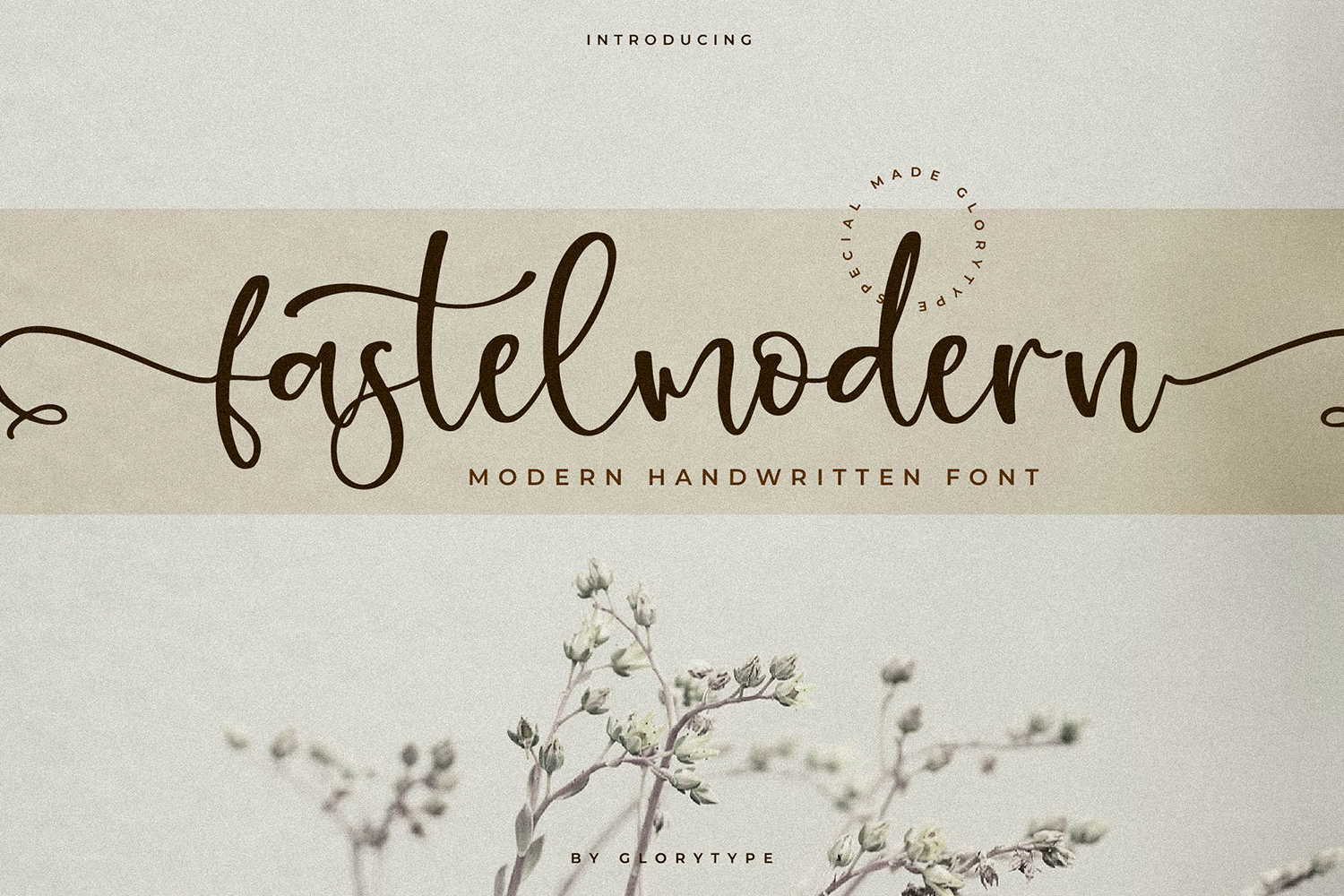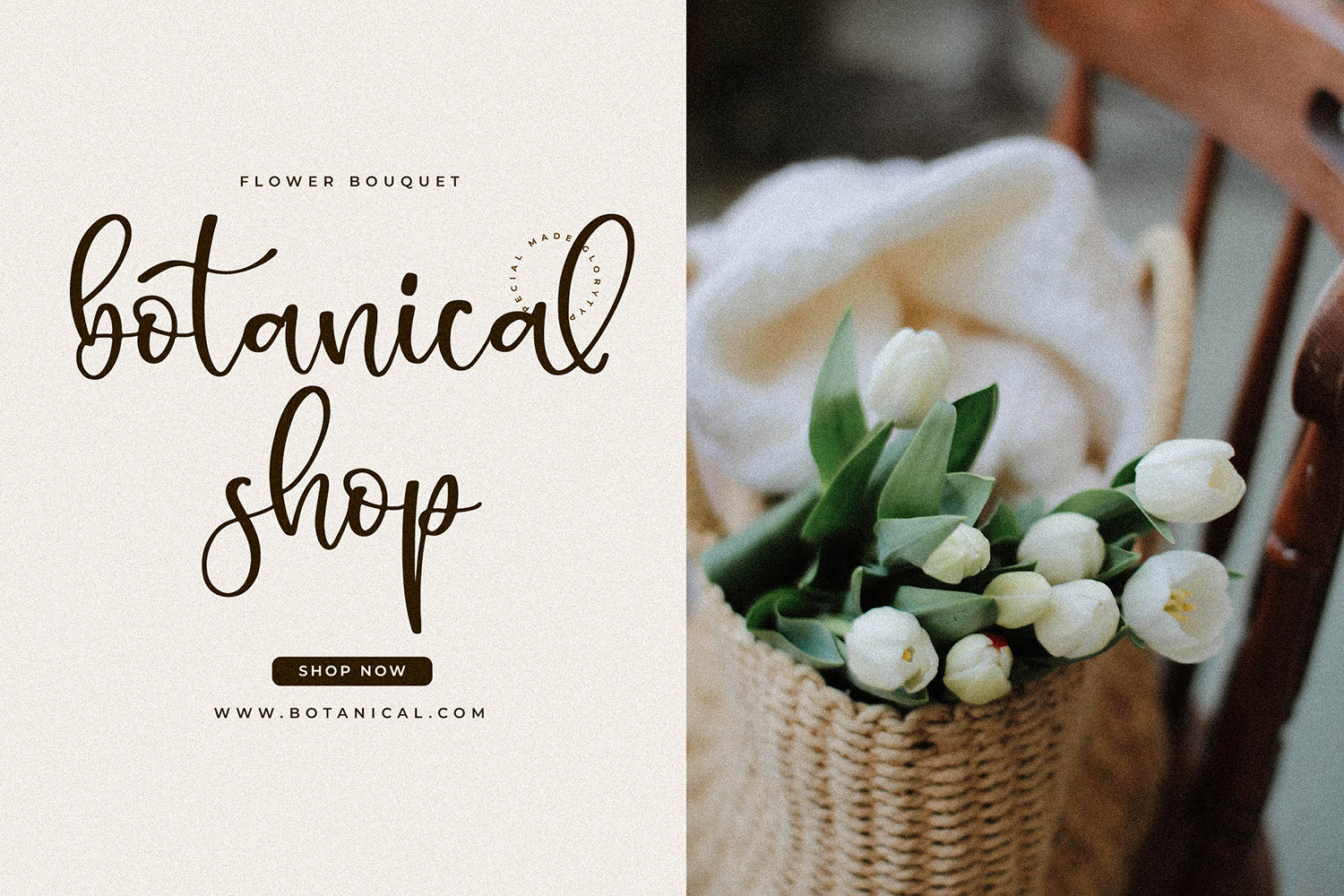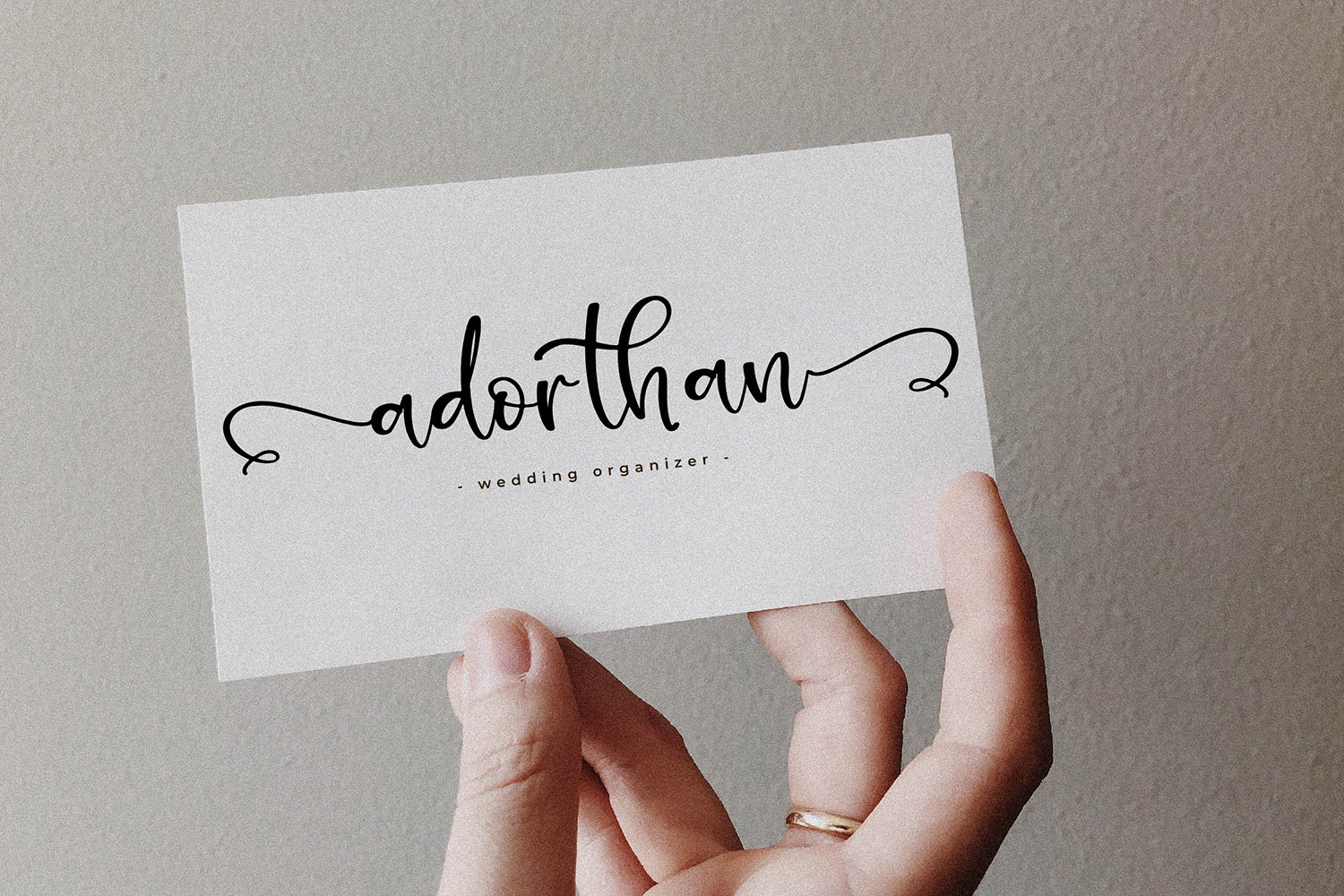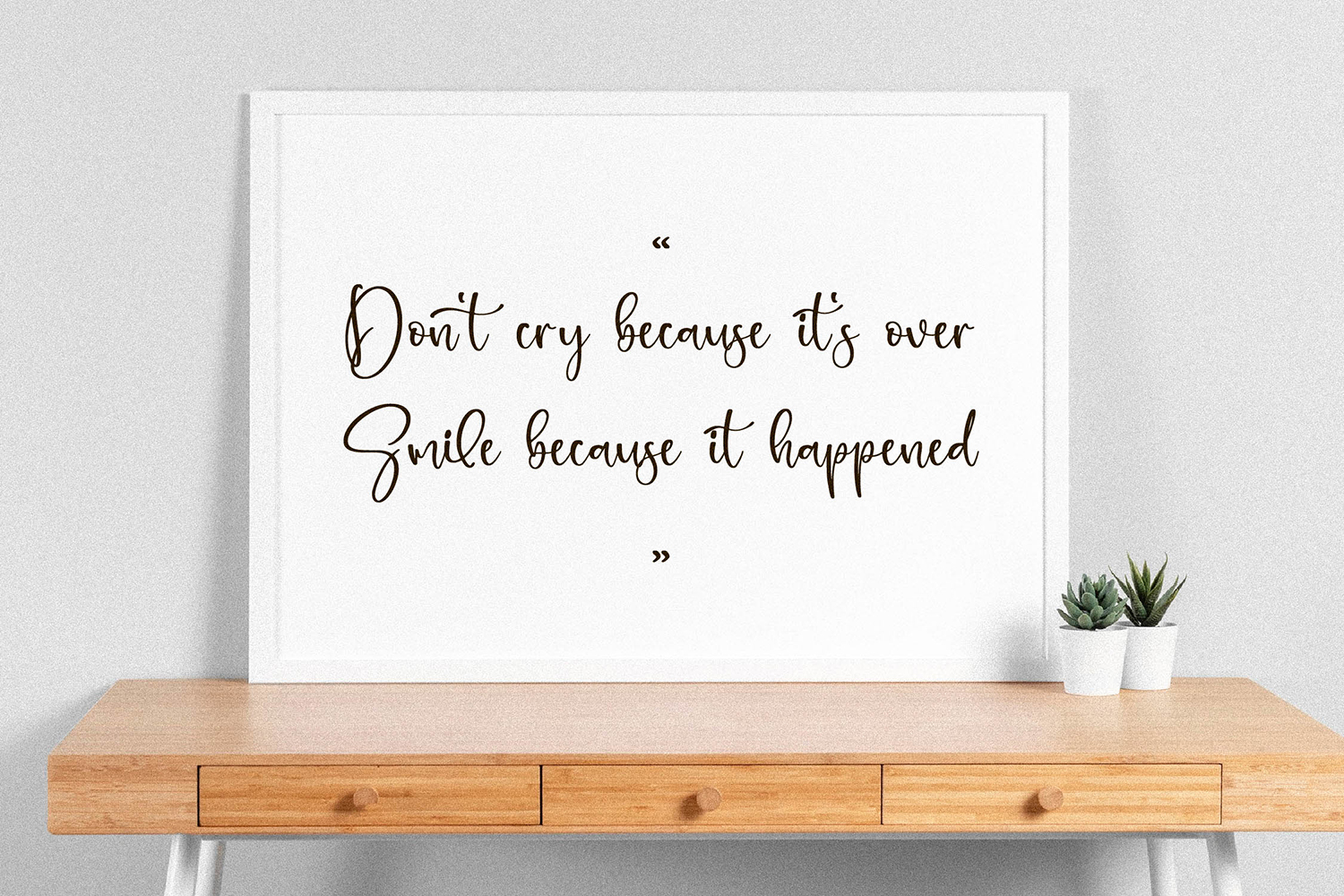
Fastelmodern Free Font
Introducing Fastelmodern Free Font – a stunning modern handwritten font, perfect for a multitude of projects. Whether it’s logos, branding, homeware designs, product packaging, mugs, quotes, posters, shopping bags, t-shirts, book covers, name cards, invitation cards, greeting cards, labels, photography, watermarking, special events, or any other lovely endeavor requiring a touch of beautiful script, Fastelmodern is the ideal choice. Elevate your creations with the elegance of this versatile font and witness how it adds a captivating script taste to all your projects. Don’t miss the chance to make Fastelmodern an essential part of your design toolkit. This free typeface was designed by a talented Glorytype Studio. If you like it don’t forget to check out the full version.